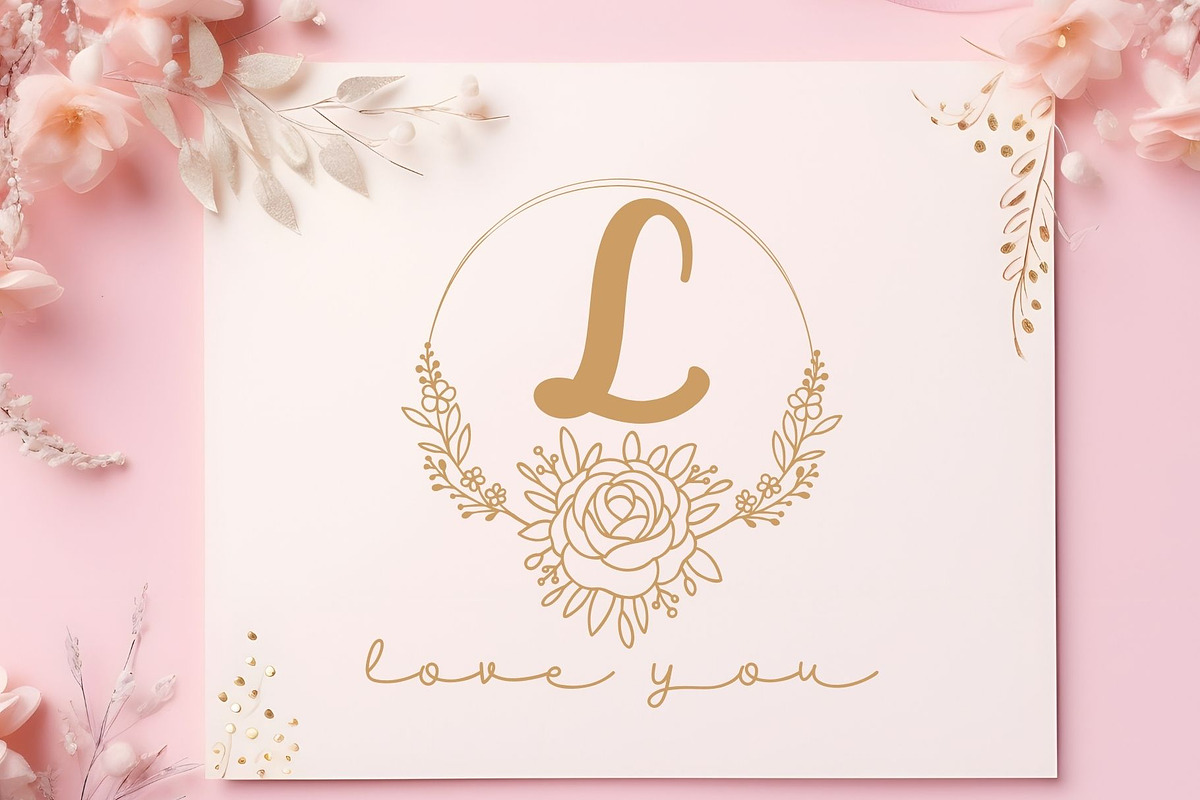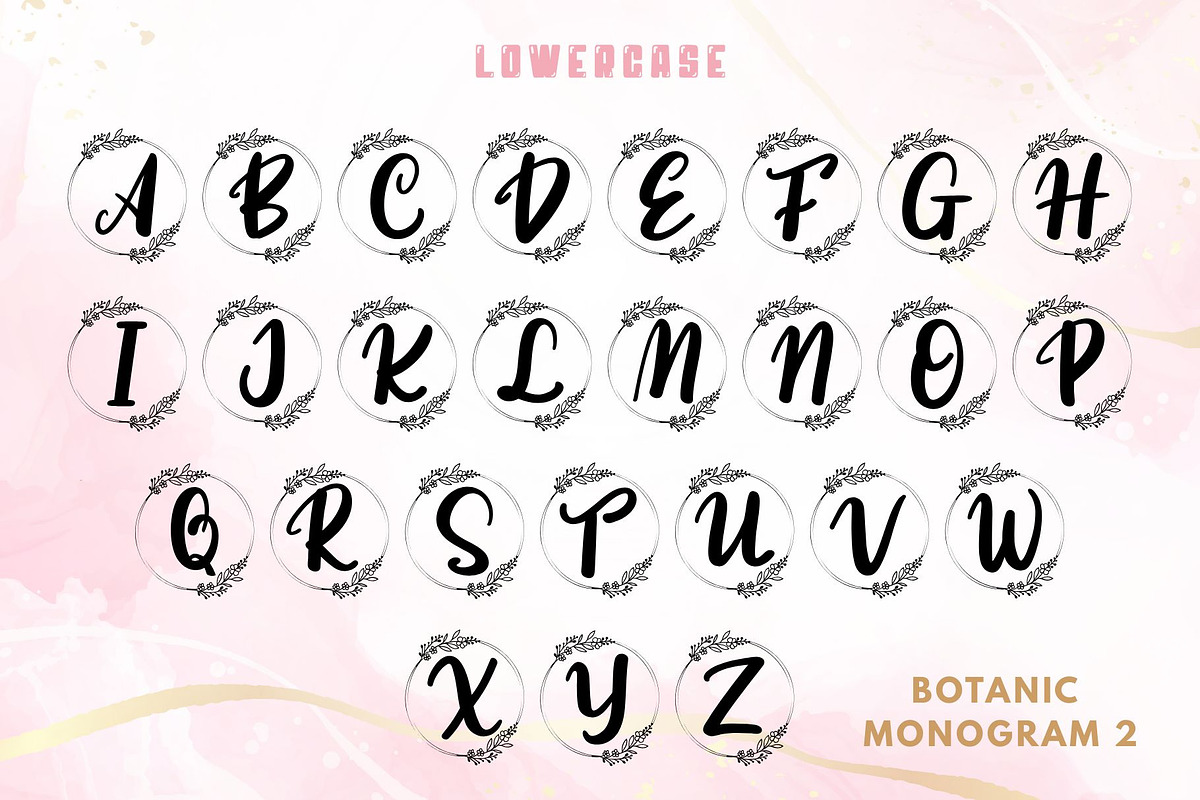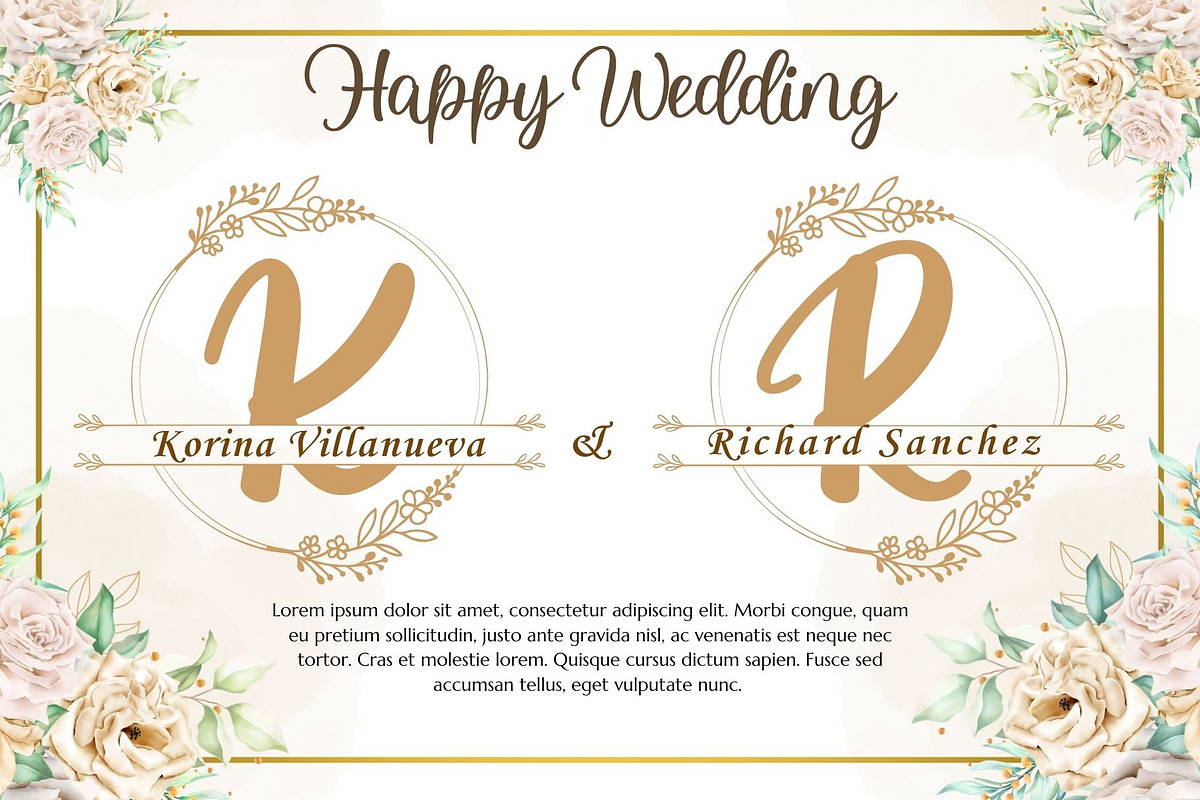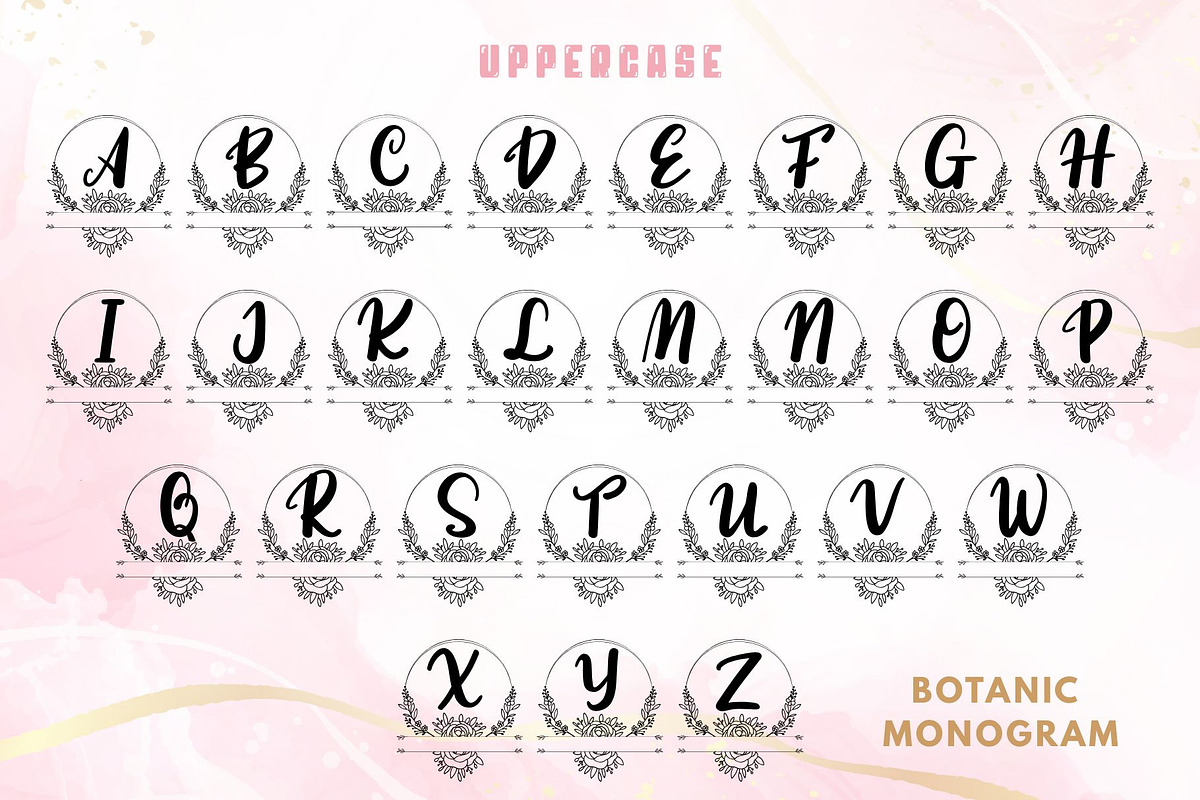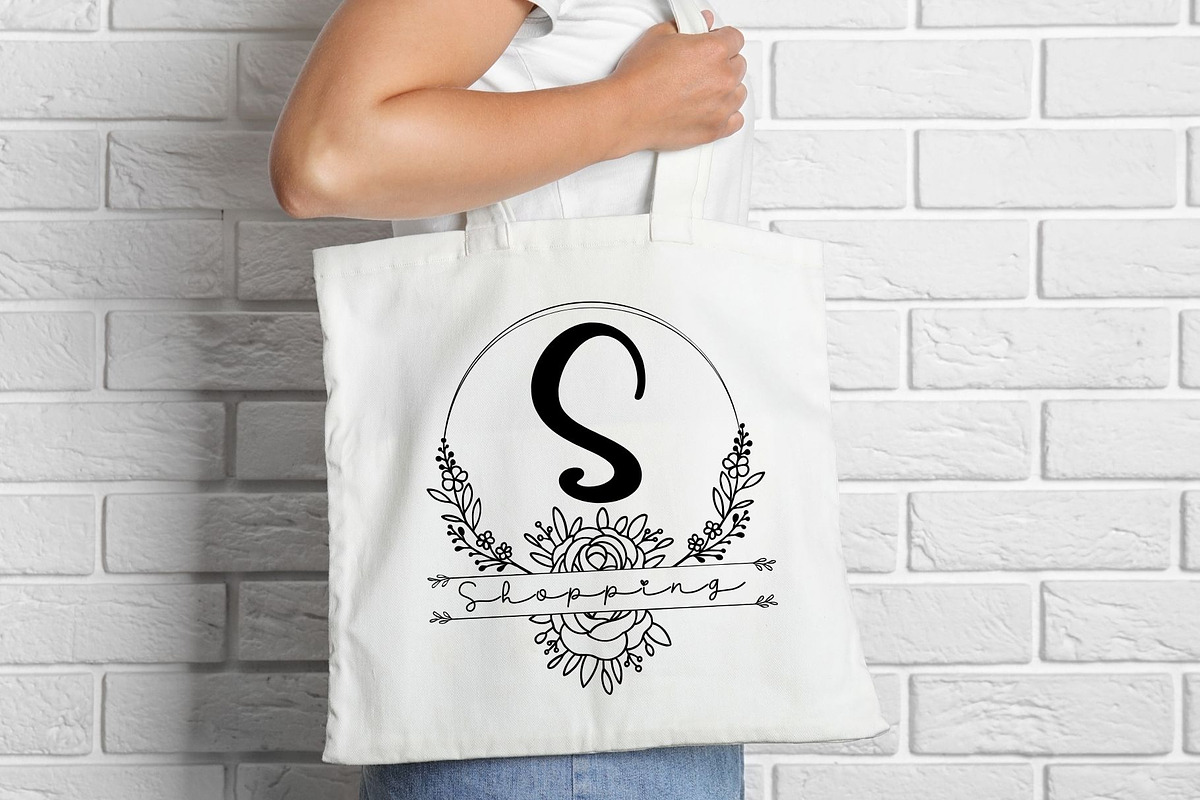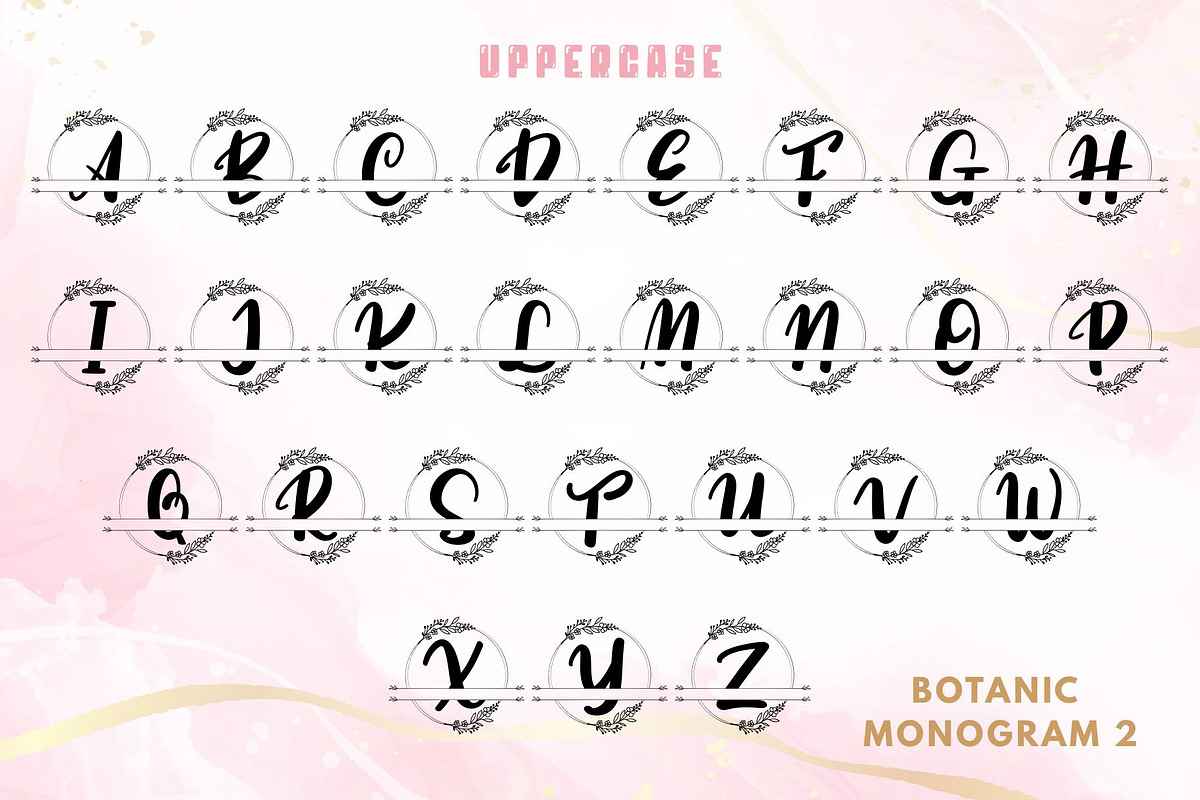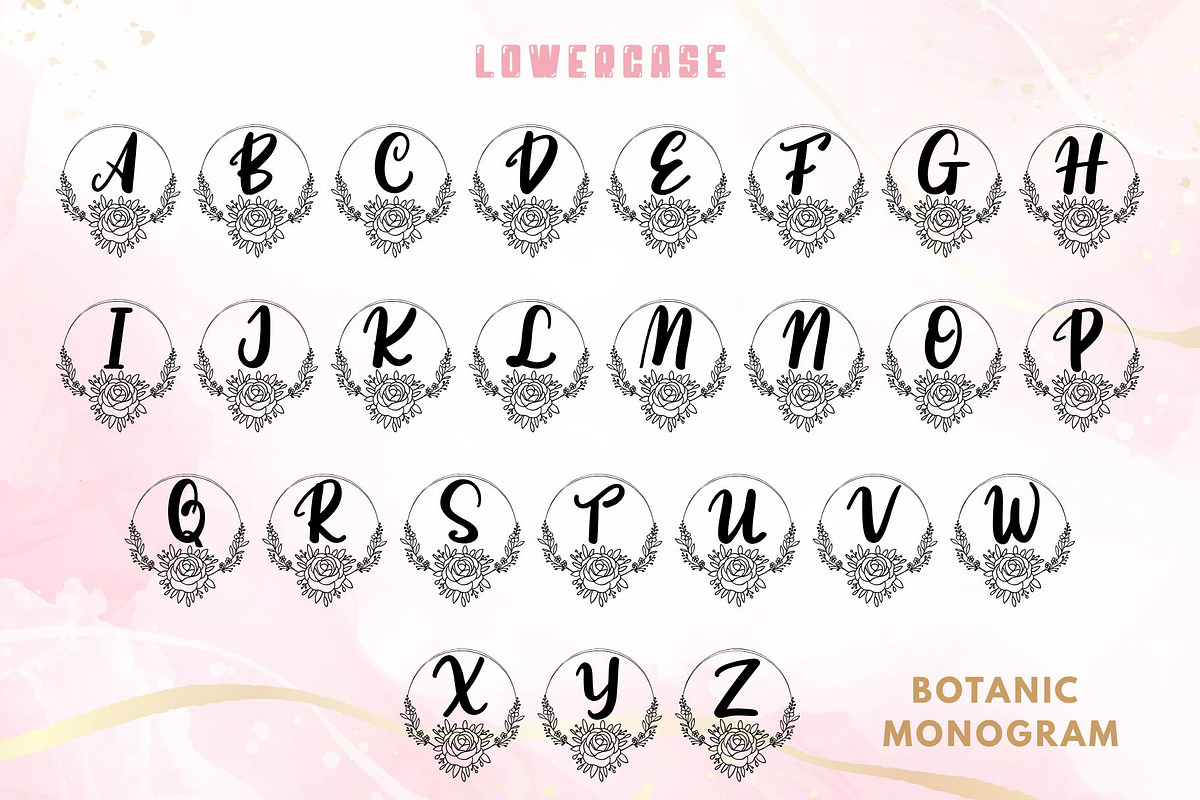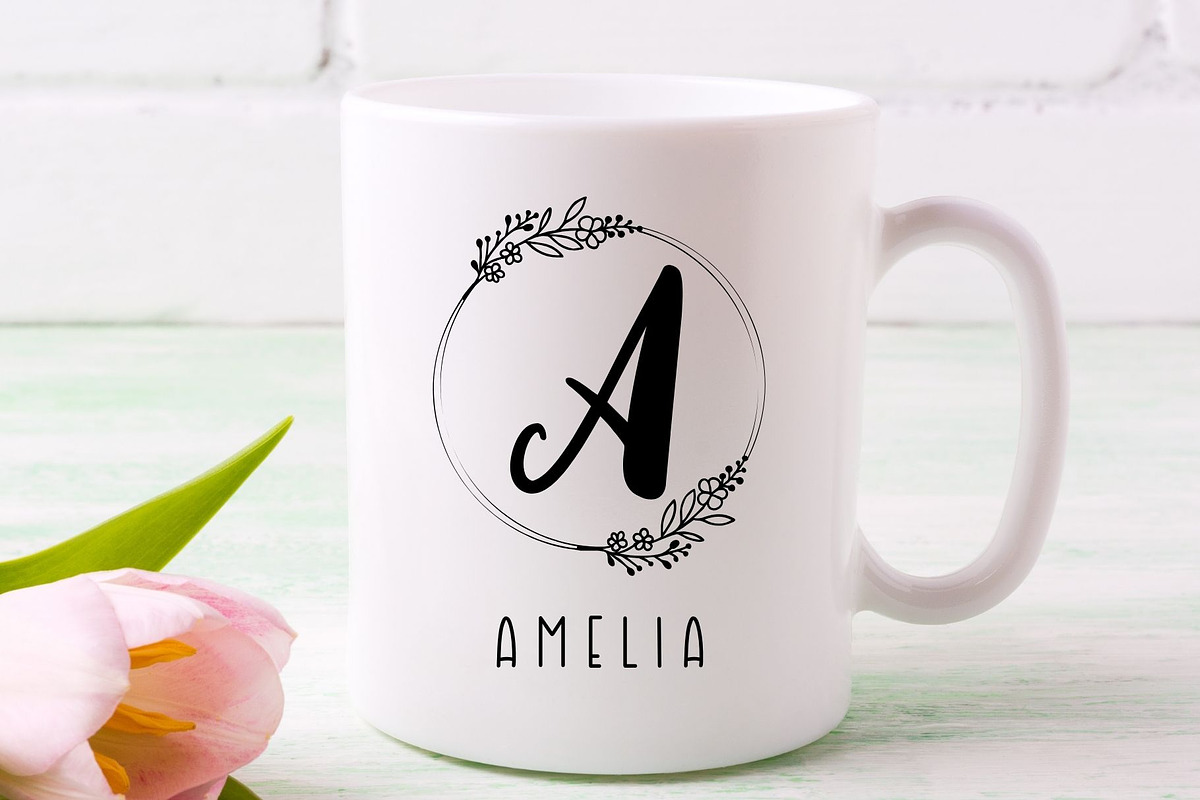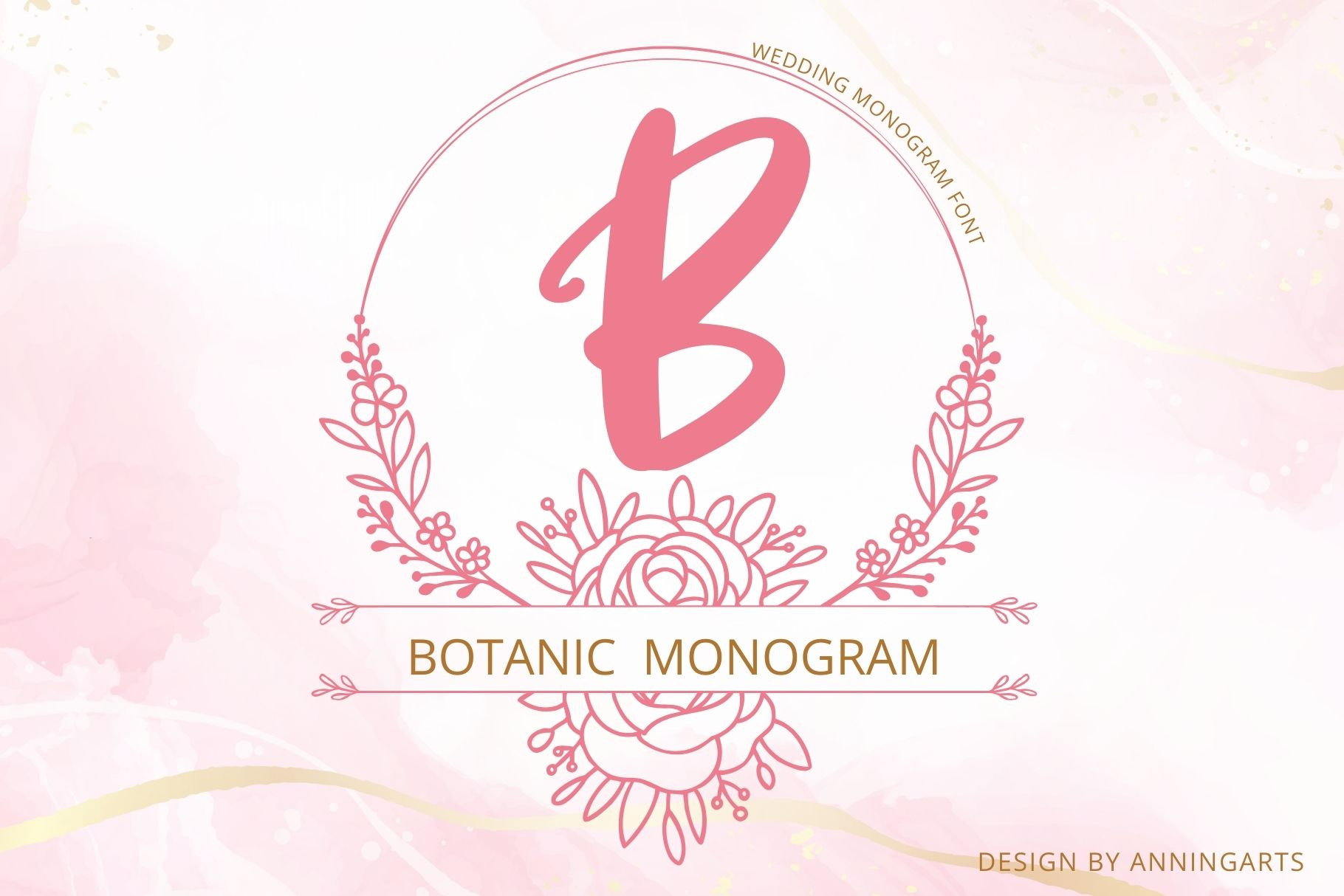
Botanica Monogram Font
Botanic Monogram is a beautiful collection of uppercase fonts framed by intricate floral and botanical wreaths. This elegant and sophisticated font is ideal for wedding invitations, branding, luxury packaging, and personalized monograms. The blend of bold calligraphic lettering with delicate floral details makes this font a timeless choice for designers who appreciate the elegance of nature in their typography.